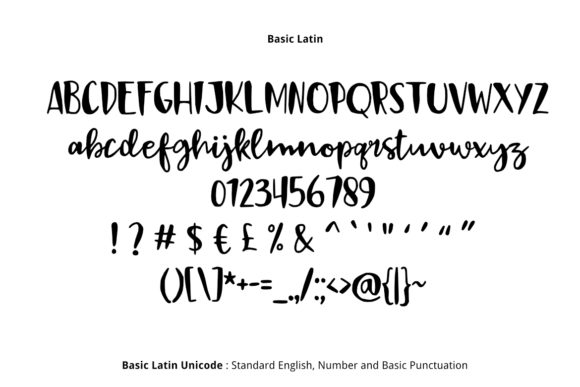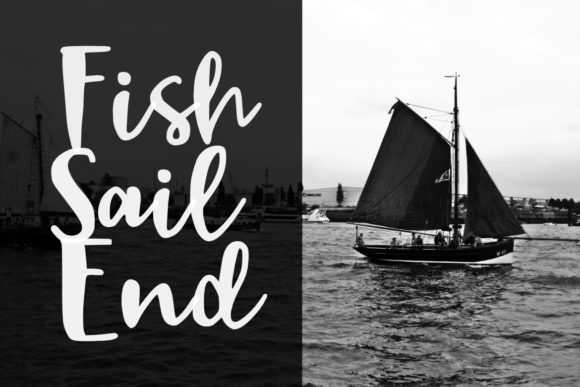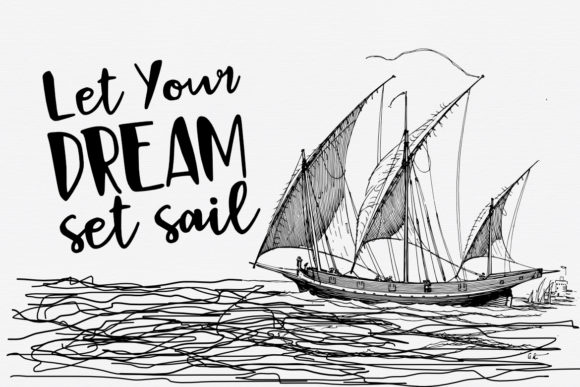
The Black Sail Font: A Personal Design Journey
I’ll never forget the moment I stumbled upon the Black Sail font while working on a whimsical craft project for a client. I was on a mission to find the perfect script font that exuded a sense of playfulness and authenticity. As I scrolled through my font library, Black Sail caught my eye, and I knew I had found the one. In this article, I’ll share my experience with this beautiful font, its unique features, and how to make the most of it in your designs.
An Honest Review of Black Sail
What I Love About Black Sail ✨
- ✅ Simple yet playful script with a personal charm
- ✅ Versatile and adaptable to various design projects
- ✅ Unique character set with stylistic alternates
- ⚠️ Limited use of intricate flourishes, which may not suit every design style
- ⚠️ May not be the best fit for body text or lengthy paragraphs
The Story Behind Black Sail
Black Sail was designed with the intention of creating a simple, yet authentic script font that captures the essence of handwriting. The designer aimed to craft a font that feels personal and approachable, making it perfect for creative projects that require a touch of whimsy.
| Font Name | Black Sail Font |
| Author | YandiDesigns |
Q: What makes Black Sail unique?
A: Black Sail’s unique character set, stylistic alternates, and simple yet playful design make it stand out from other script fonts.
Q: Is Black Sail suitable for body text?
A: While Black Sail is highly legible, it may not be the best fit for lengthy paragraphs or body text. It’s better suited for headings, titles, and short text snippets.